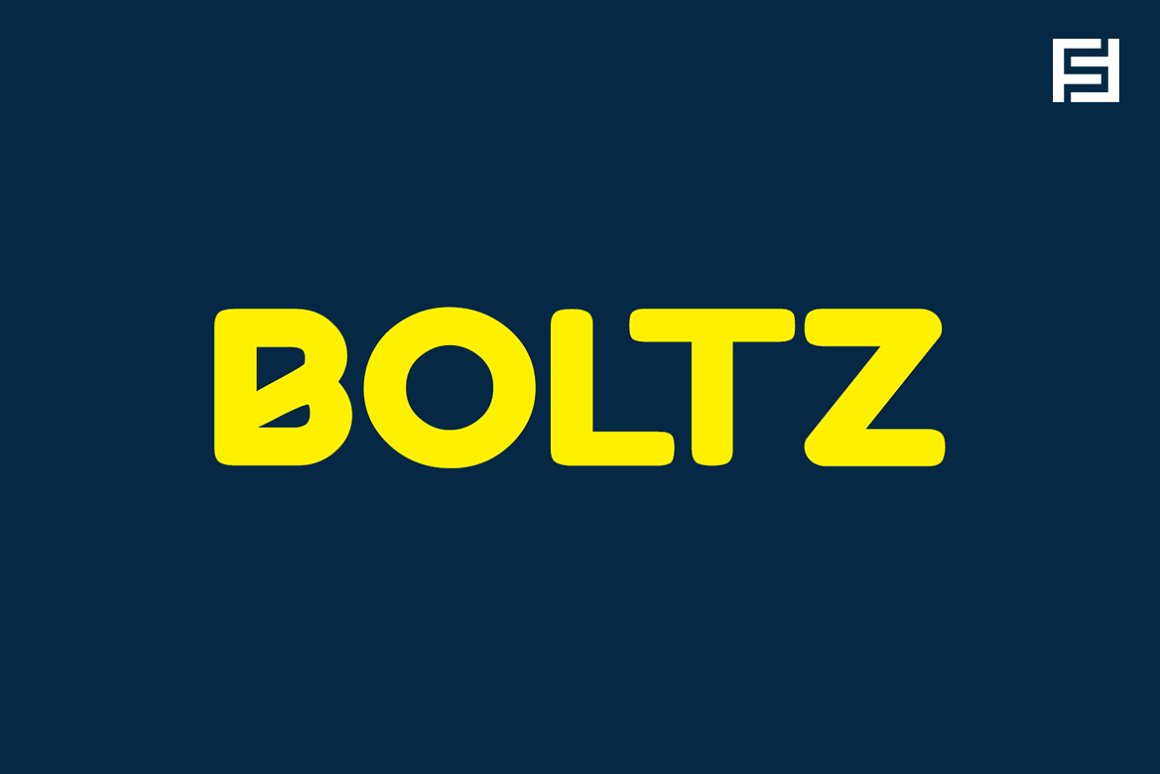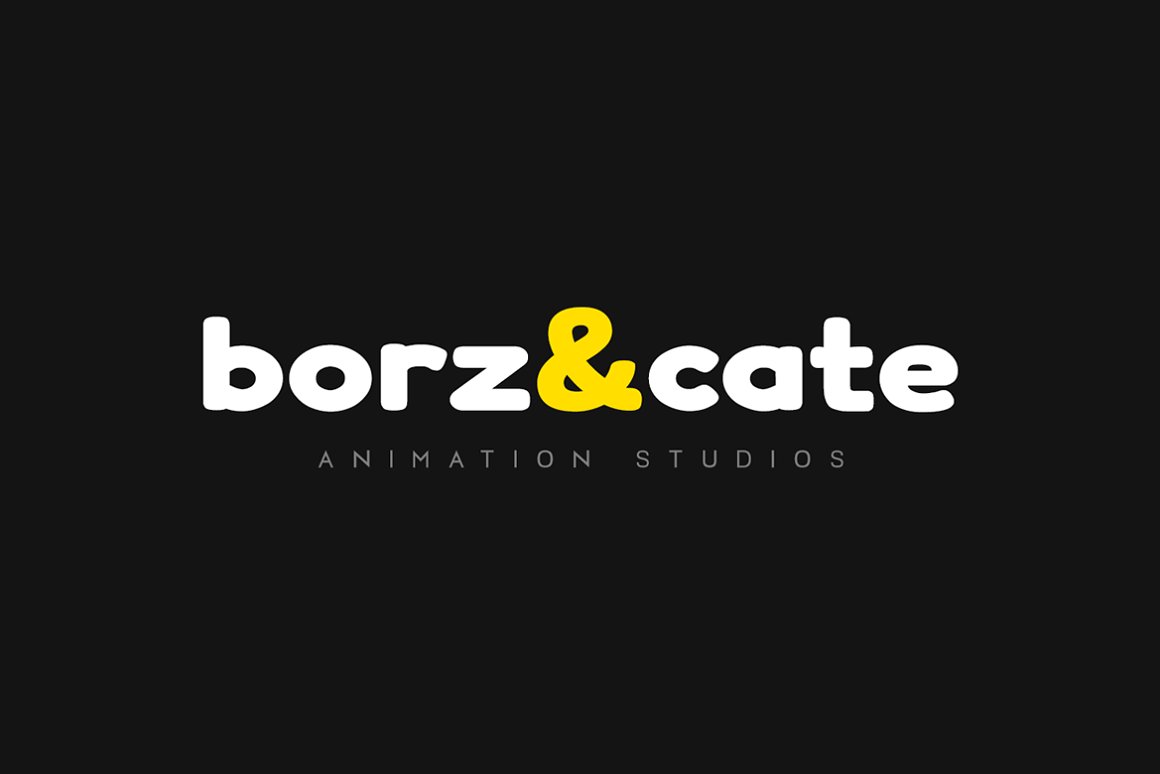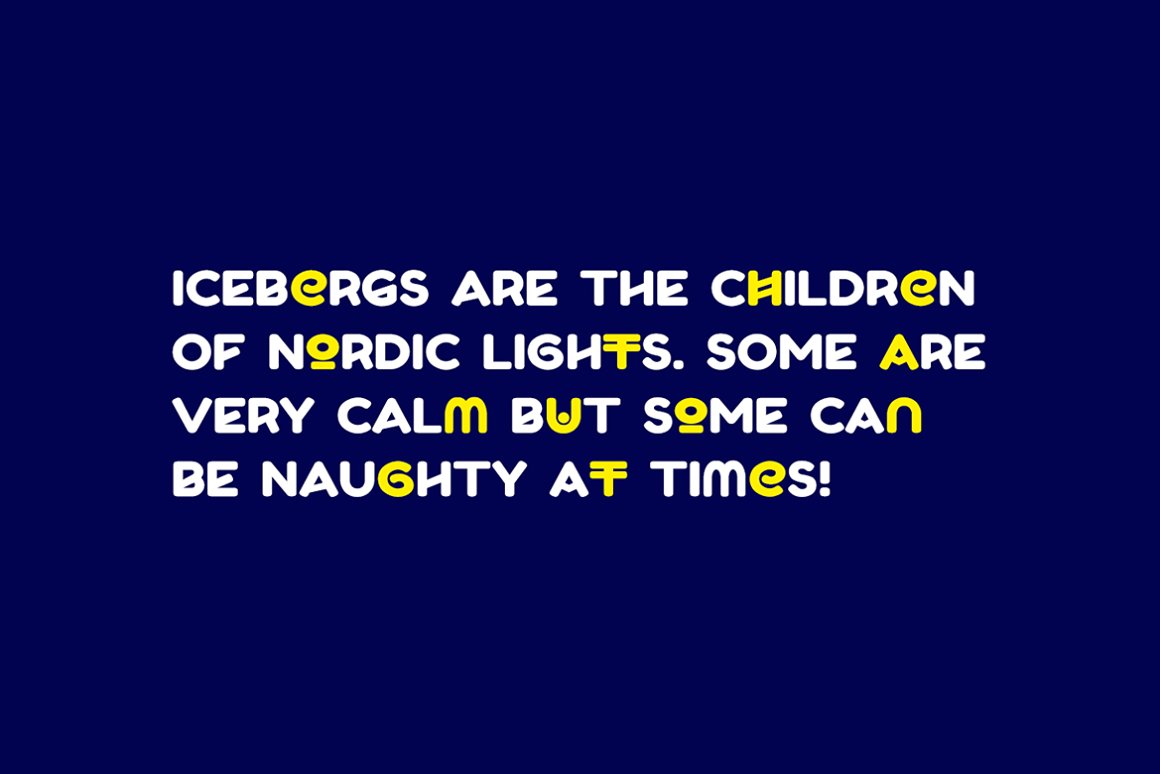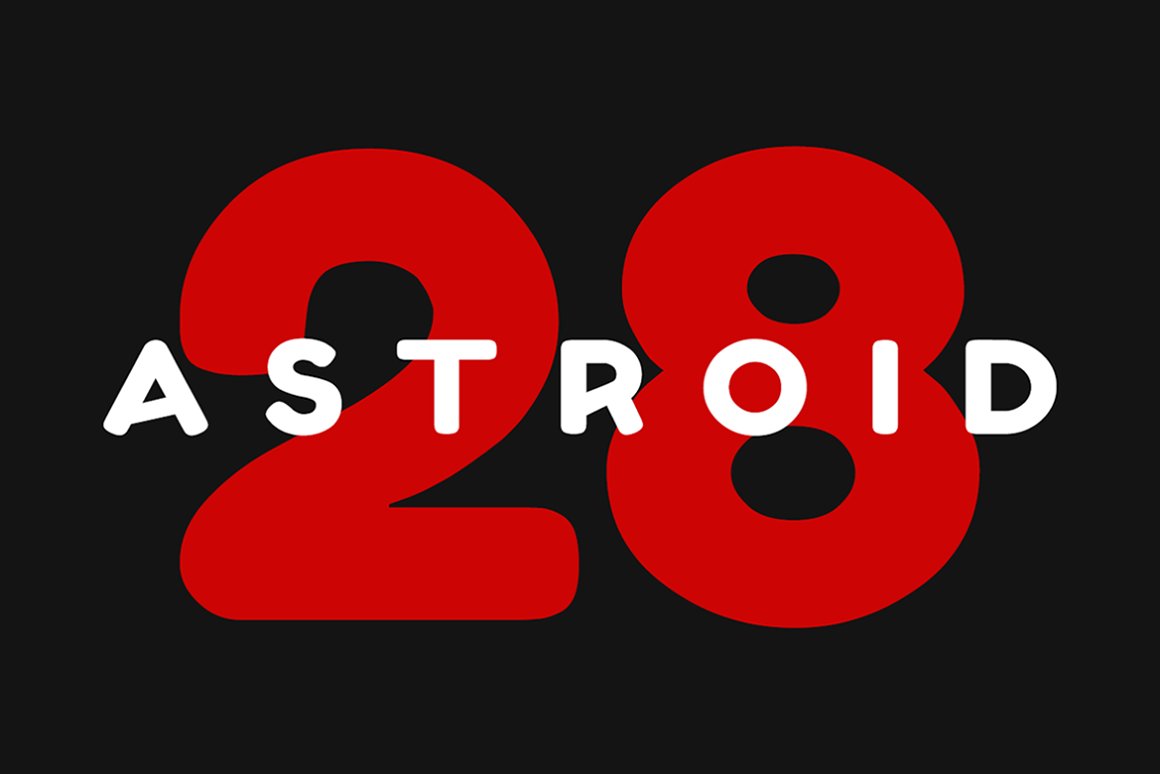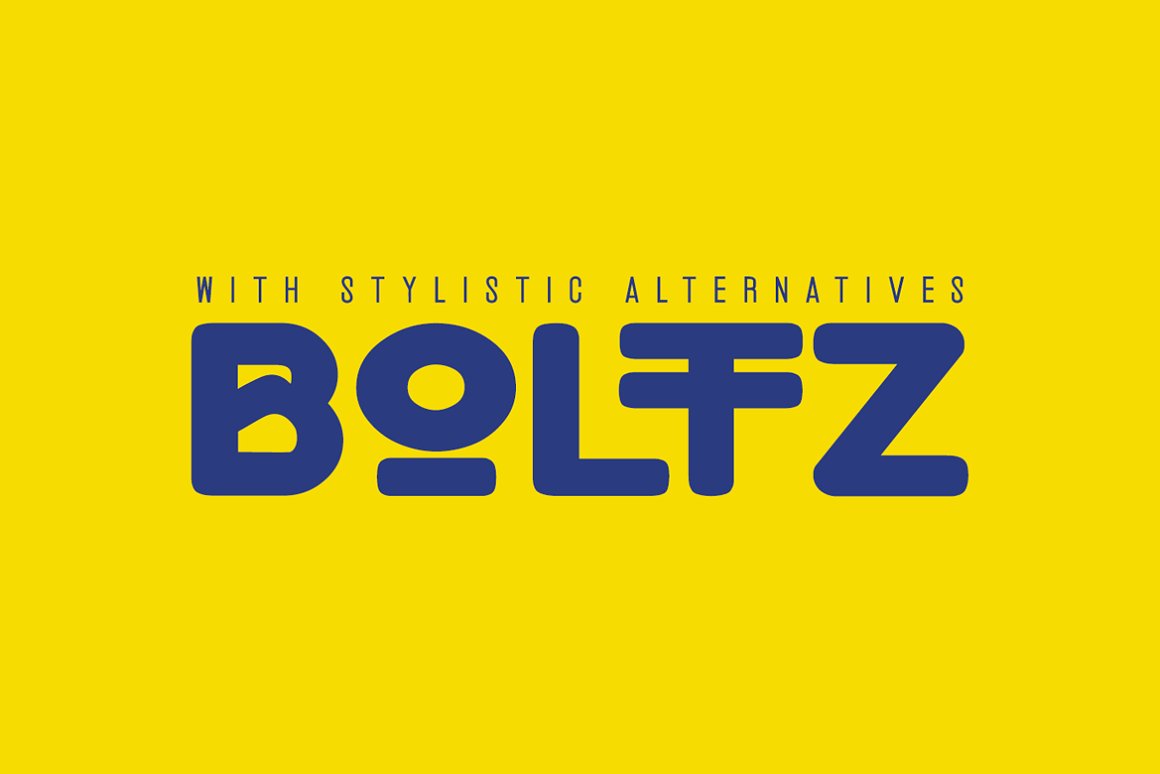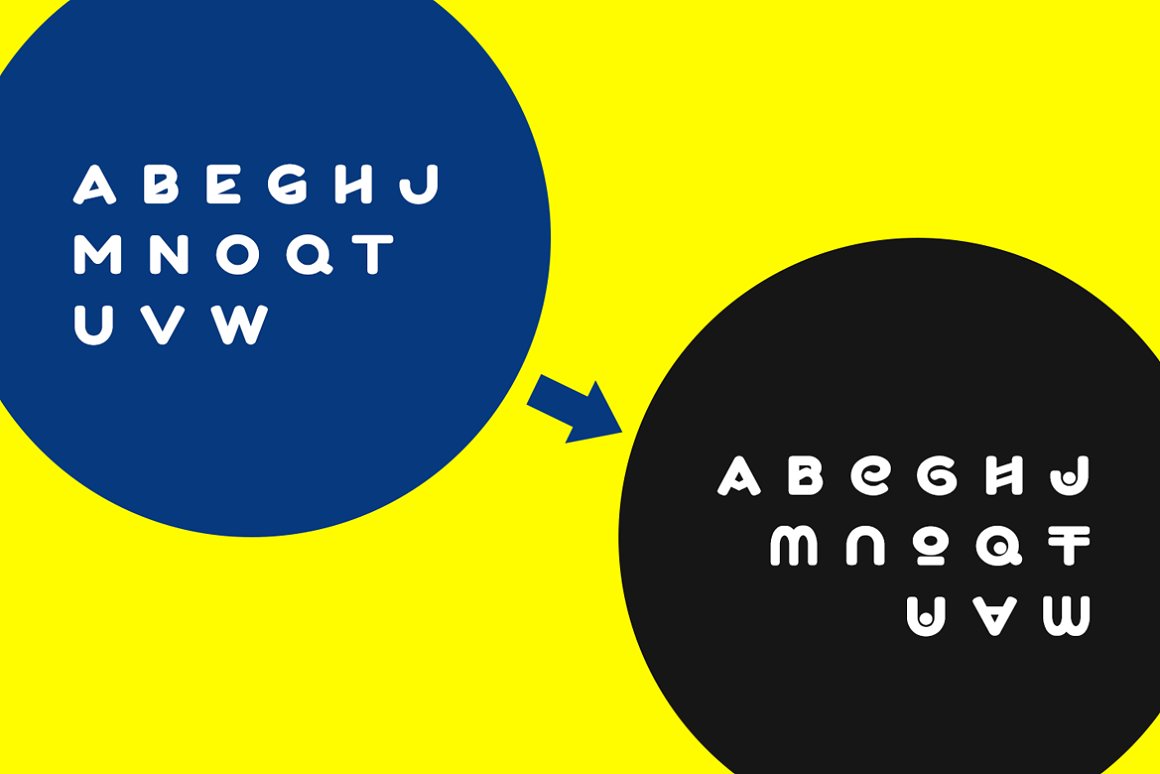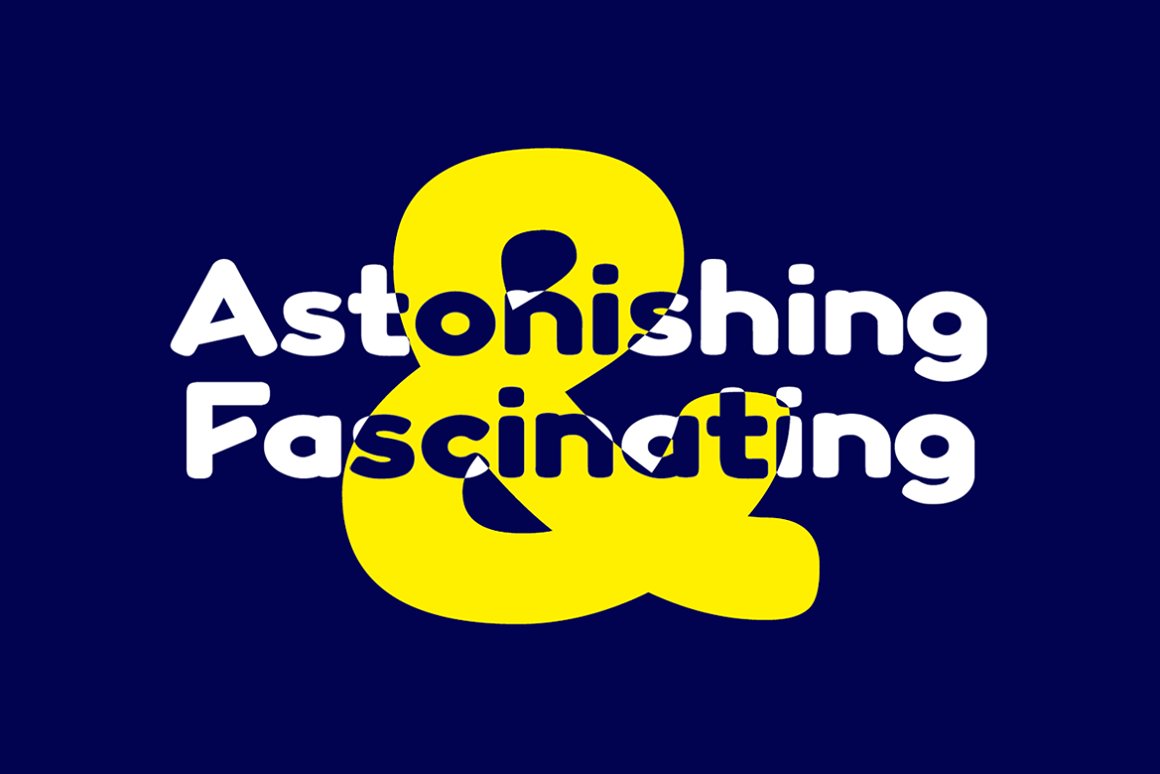
Boltz is a unique display typeface created with bold geometric forms and a strong futuristic appearance.
Boltz is a unique display typeface created with bold geometric forms and a strong futuristic appearance. Its sharp structure and modern character deliver a powerful visual impact, making it suitable for eye-catching typography. Designed for technology projects, gaming, posters, branding, logos, digital artwork, and contemporary visual designs.
Glyphs & Language Support
Boltz includes extended Latin language support covering Western European, Central European, Baltic, Nordic and South Eastern European languages.